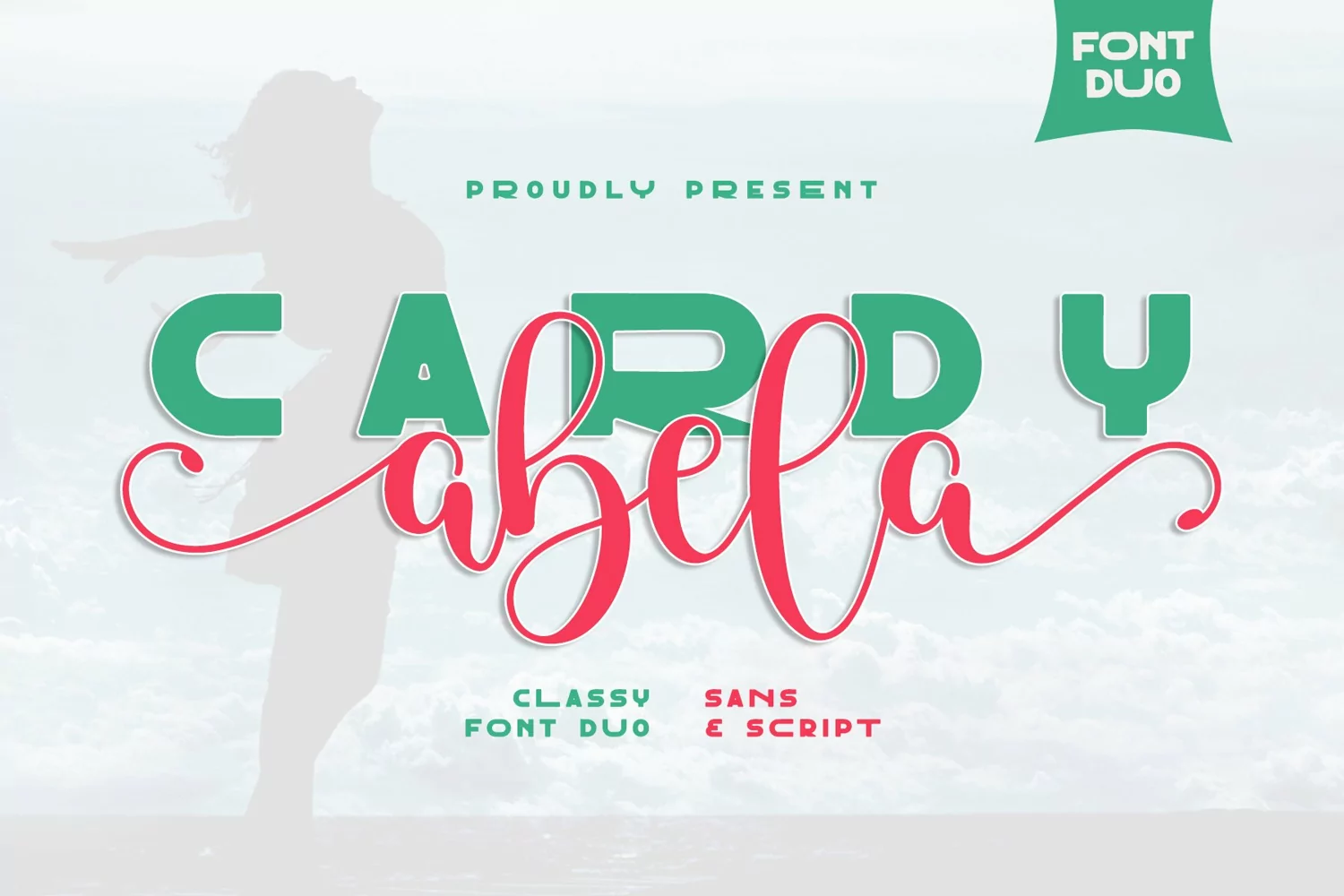
Cardy Abela is elegant, classy, and modern font. This is font duo with script font and bold display font. Both are perfect to be combined into design.
The combination of this font duo can be used in any design, such as greeting card, t-shirt, mug, branding, logo, wedding invitation, sublimation, and many other crafting.